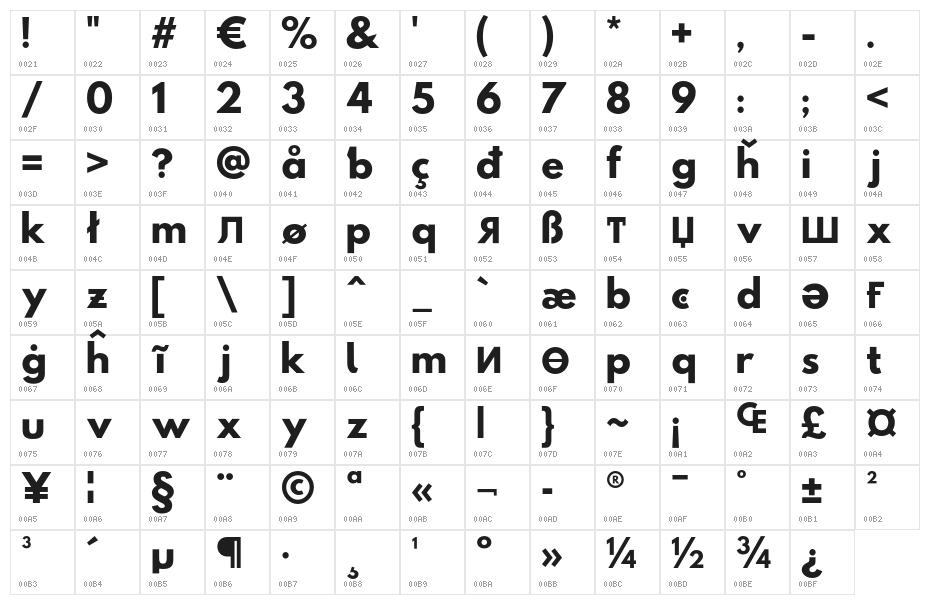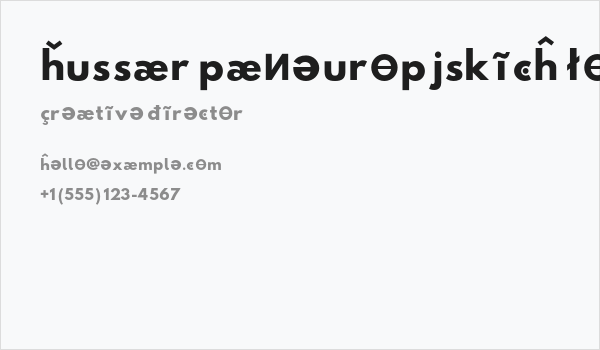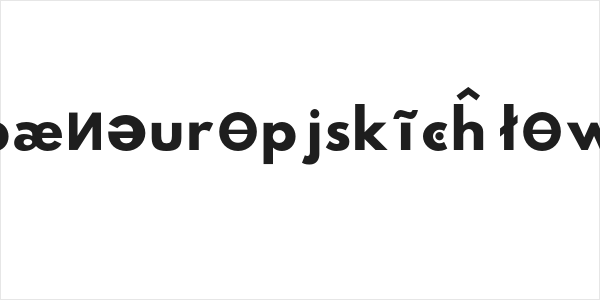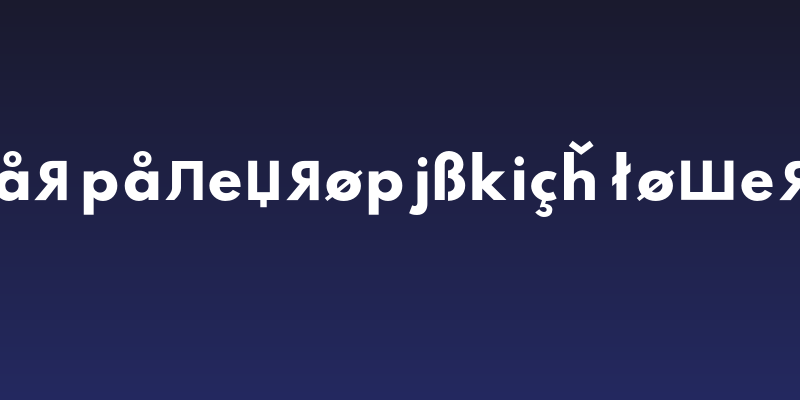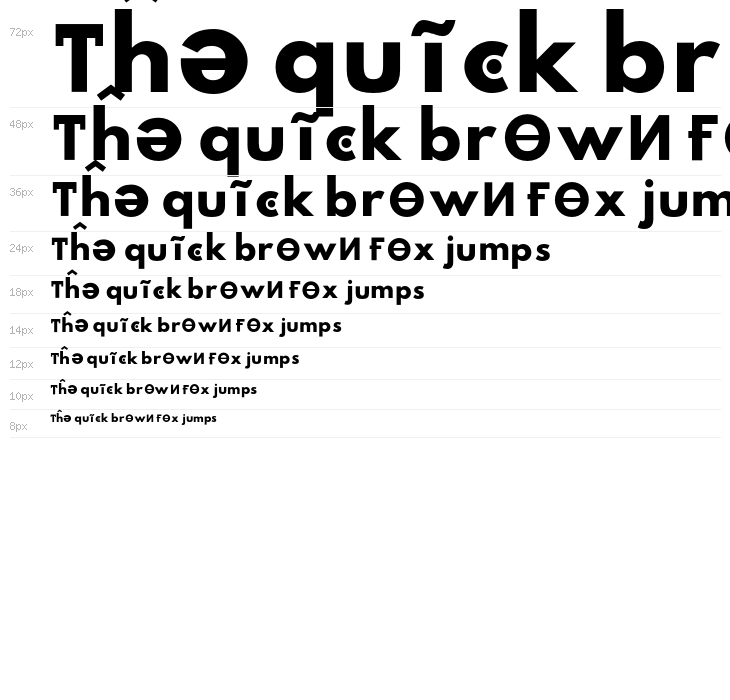
Hussar Paneuropjskich Lowercase Font
Hussar Paneuropjskich Lowercase Description
This font features a bold and geometric design with a modern aesthetic. It includes a wide range of characters, including accented letters and special symbols, making it versatile for various languages and uses. The characters are uniformly bold, with consistent stroke thickness and a clean, sans-serif style. The design is straightforward yet impactful, with a focus on clarity and readability. The numerals are distinct and easy to differentiate, and the special characters maintain the same bold and geometric style. Overall, this font is suitable for projects that require a strong and modern visual impact.